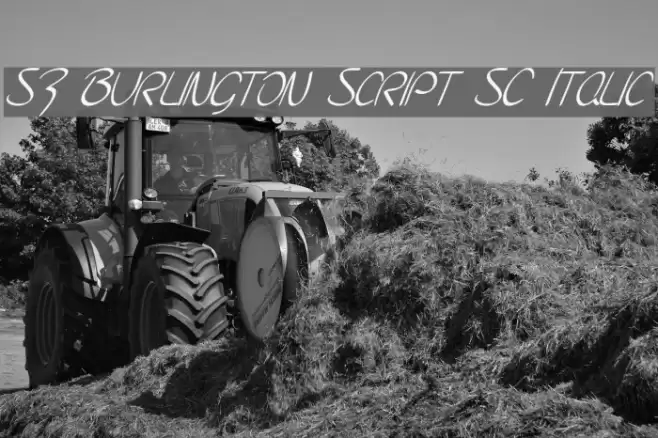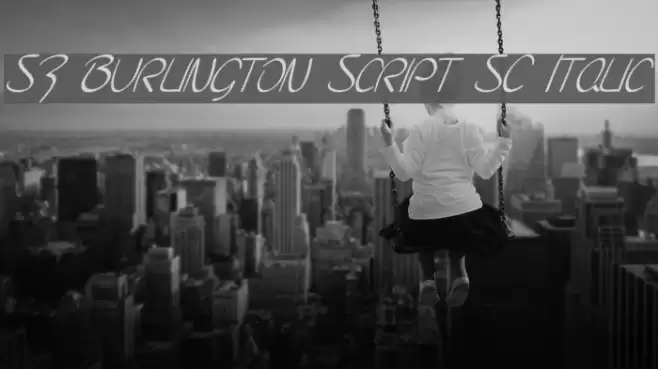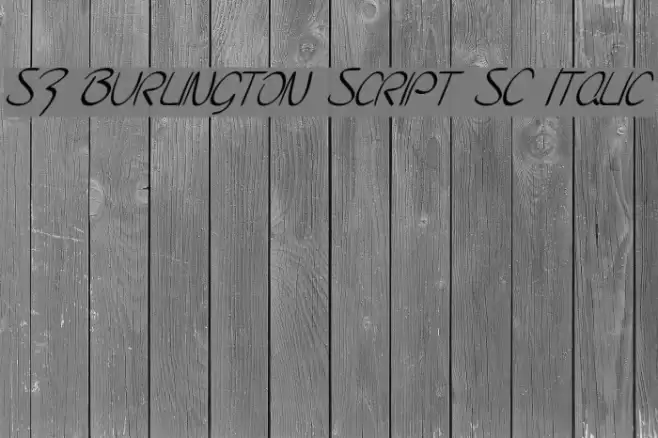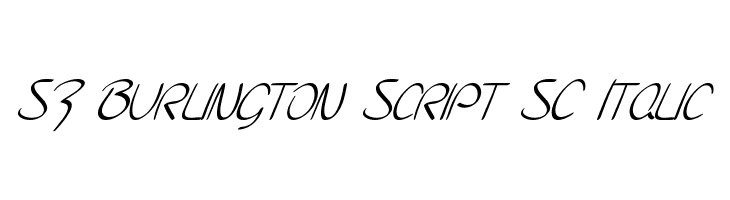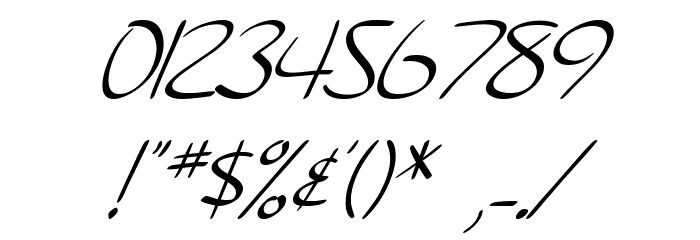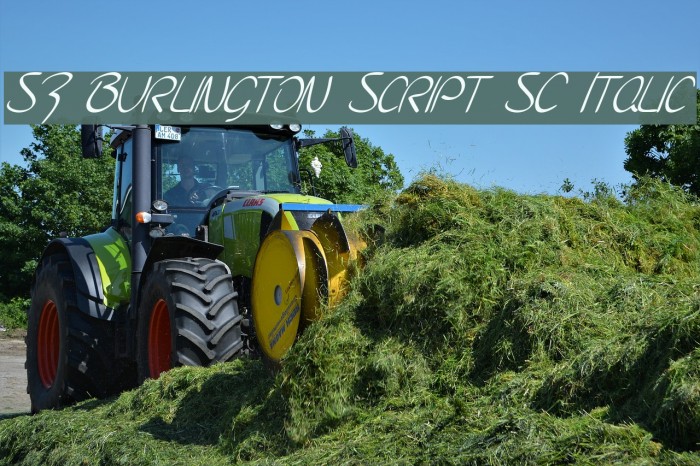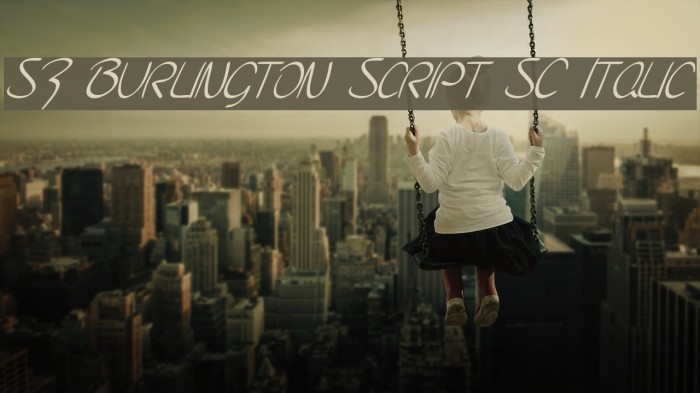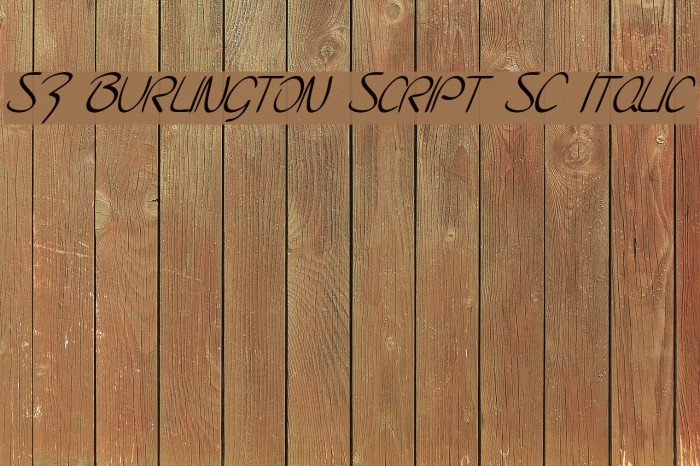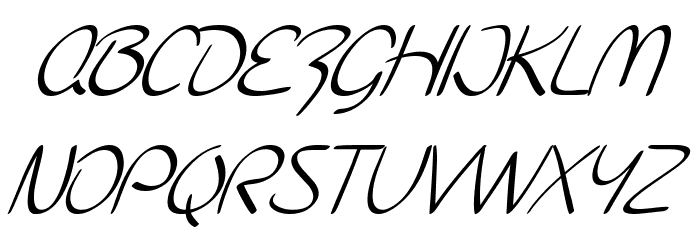
SF Burlington Script SC Italic Font
SF Burlington Script SC Italic Description
This font features an elegant and flowing script style, characterized by its smooth, cursive letterforms that convey a sense of sophistication and grace. The italic slant adds a dynamic and fluid motion to the text, enhancing its expressive quality. Each character is carefully crafted with a consistent stroke width, providing a harmonious and balanced appearance. The uppercase letters exhibit a distinctive flair, with sweeping curves and elongated tails, while the lowercase letters maintain a more restrained and refined look. The numerals and special characters are designed to complement the overall aesthetic, ensuring a cohesive visual experience.
An elegant, flowing script font with a dynamic italic slant from Handwritten fonts.
- Proposed Projects: Ideal for wedding invitations, elegant branding, personal stationery, and decorative headlines.
- Overall Style: Elegant, Decorative
- Use Case: Headlines, Invitations, Branding